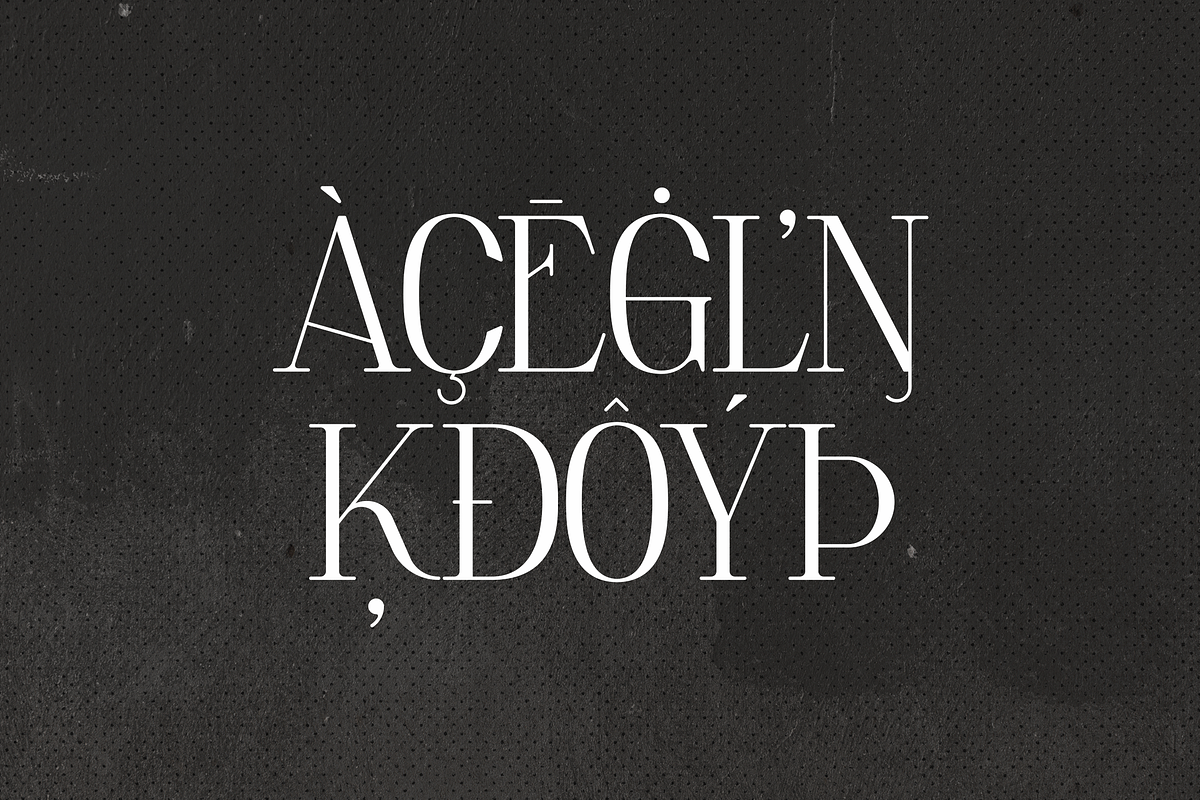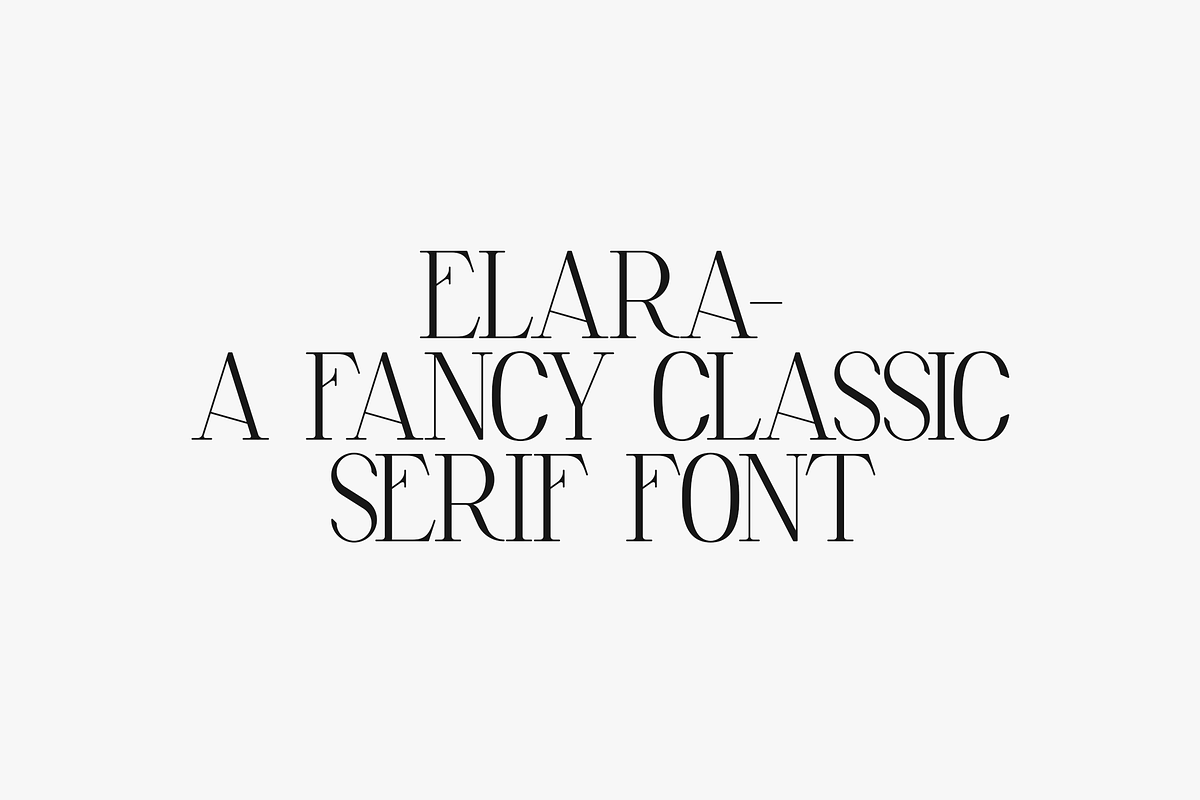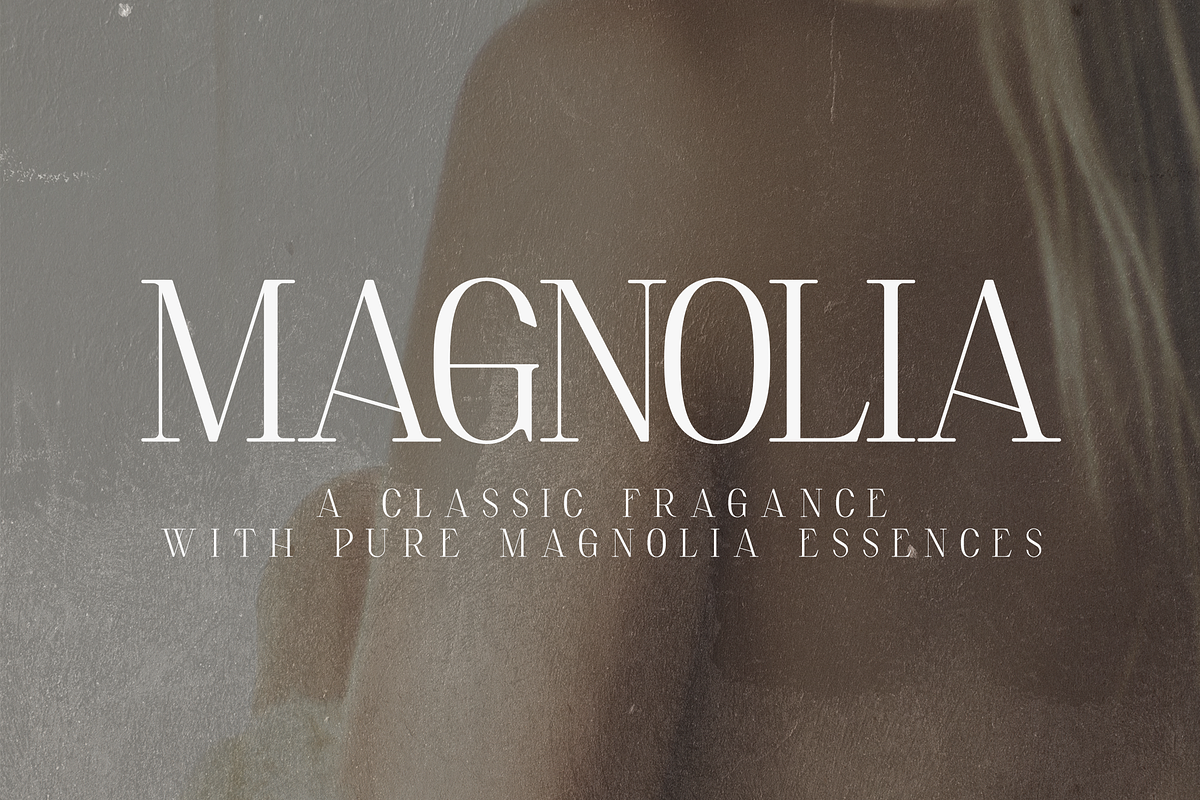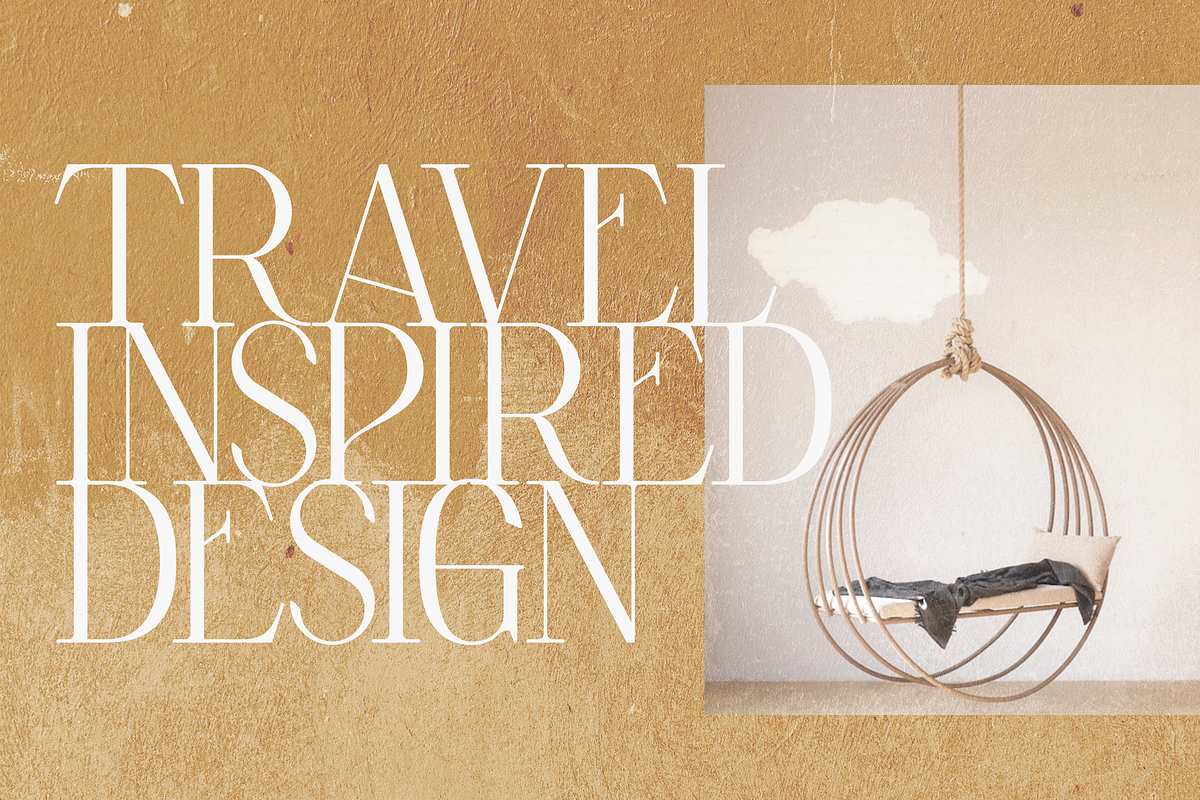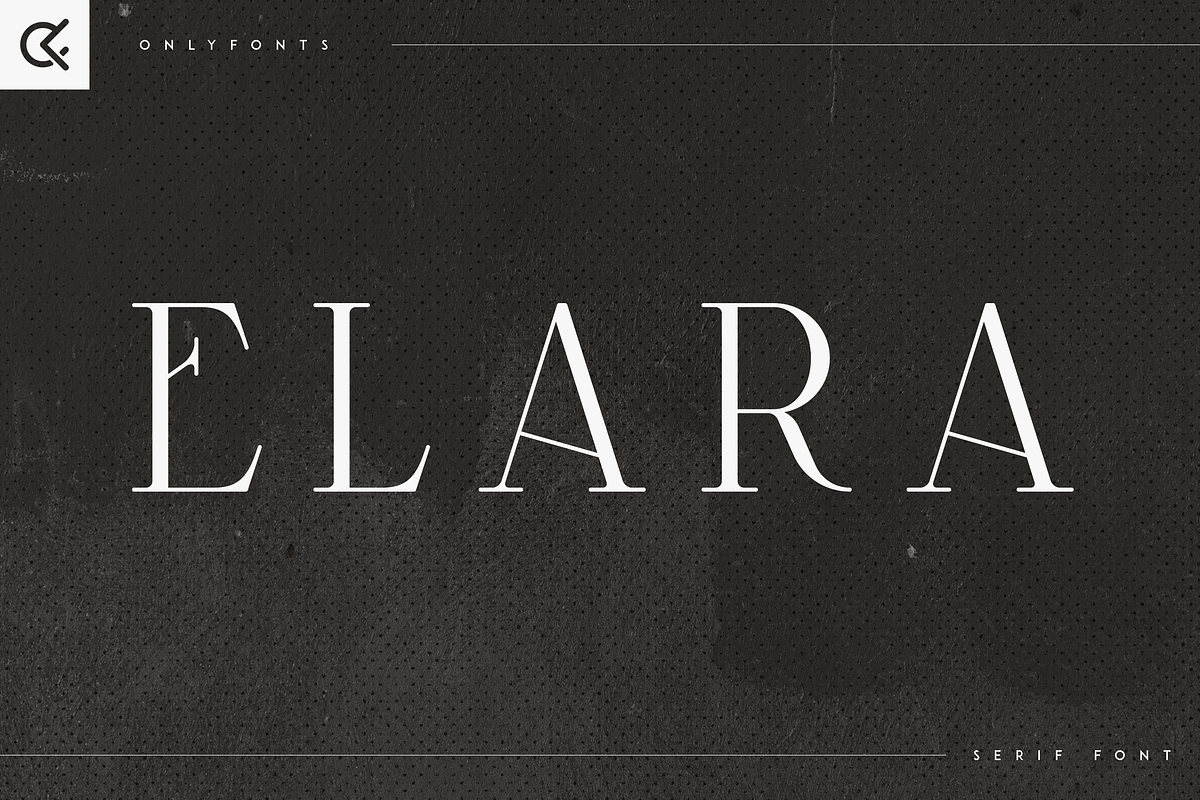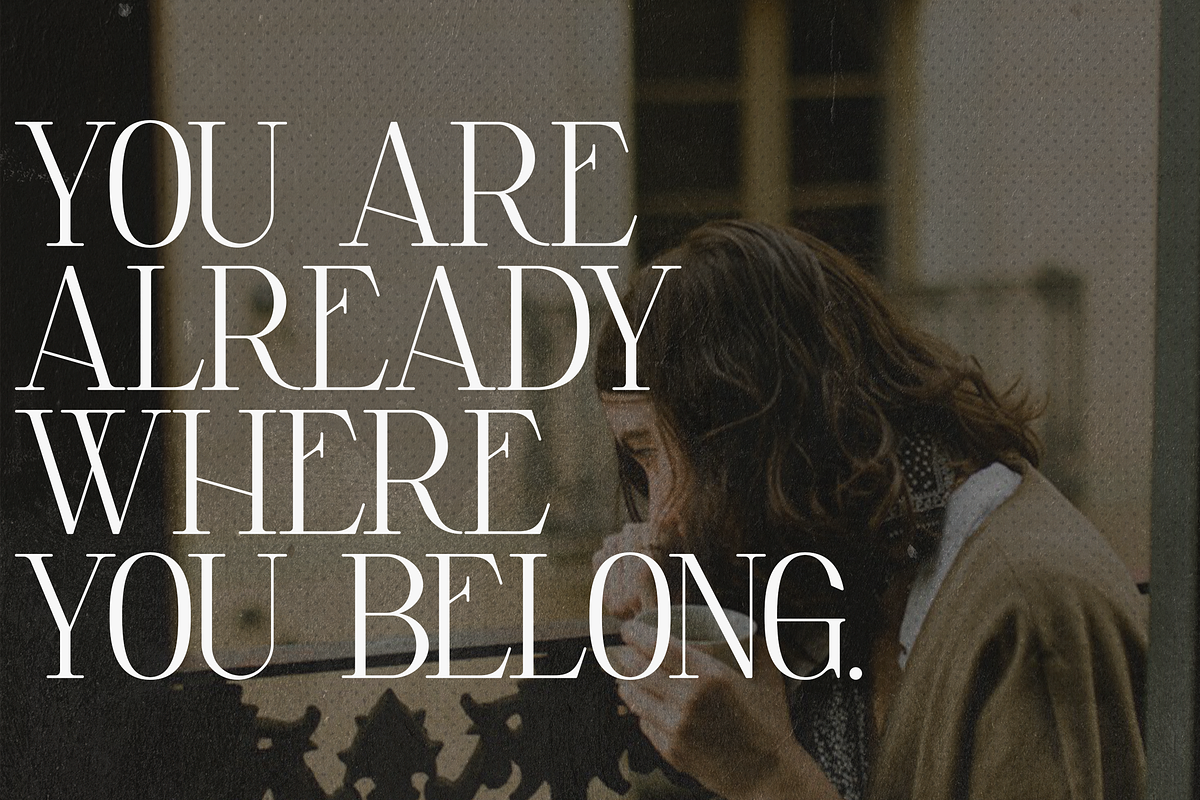
Elara - elegant serif font
Introducing Elara, a sophisticated classic serif font designed to elevate your projects with elegance and timeless style. Supporting 87 languages, Elara is perfect for a global audience, offering versatility and readability across various mediums. Ideal for branding, editorial design, and web use, Elara combines traditional serif beauty with modern functionality. Make your text stand out with Elara's refined and graceful letterforms, ensuring a polished and professional look for any project.